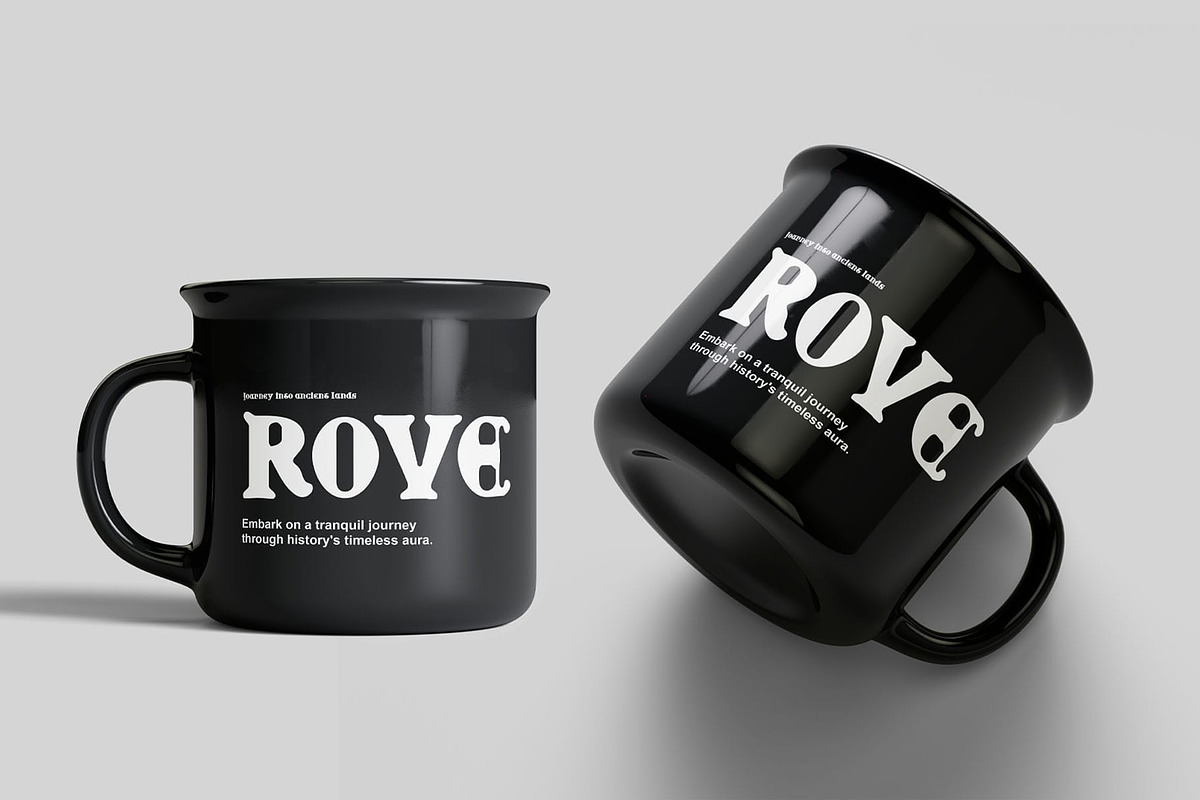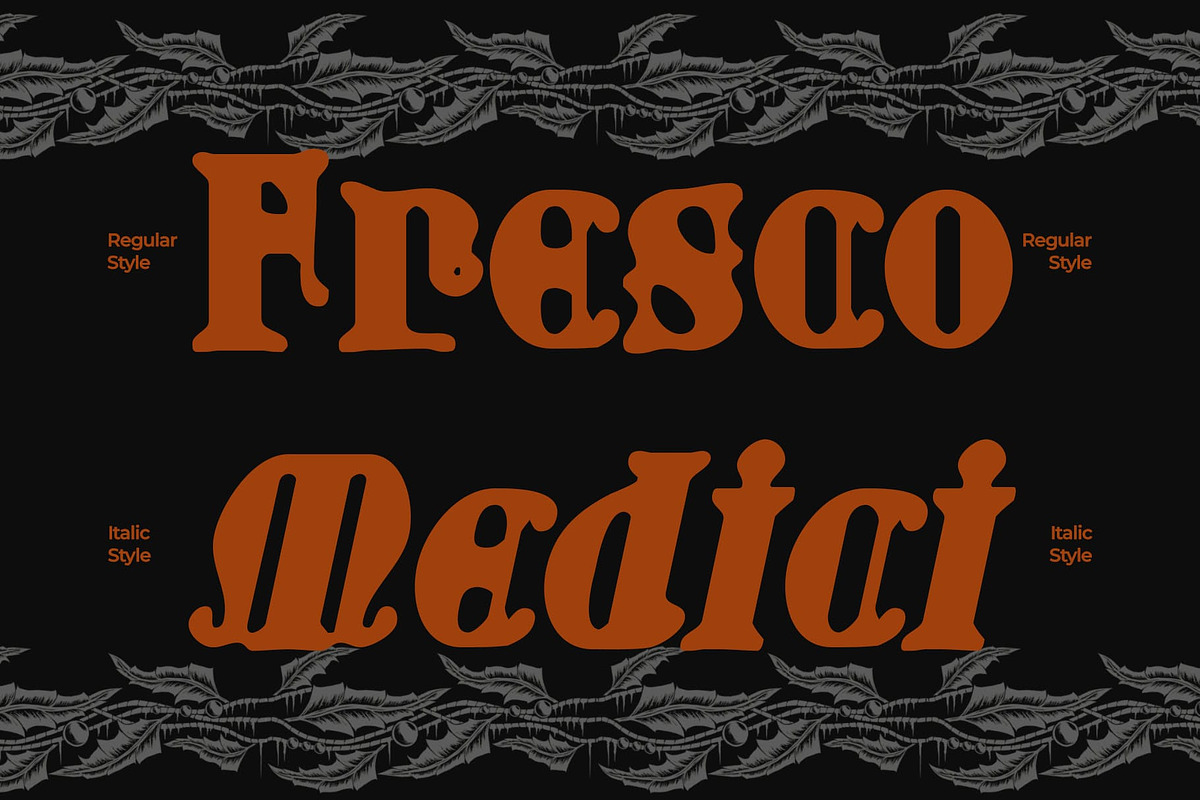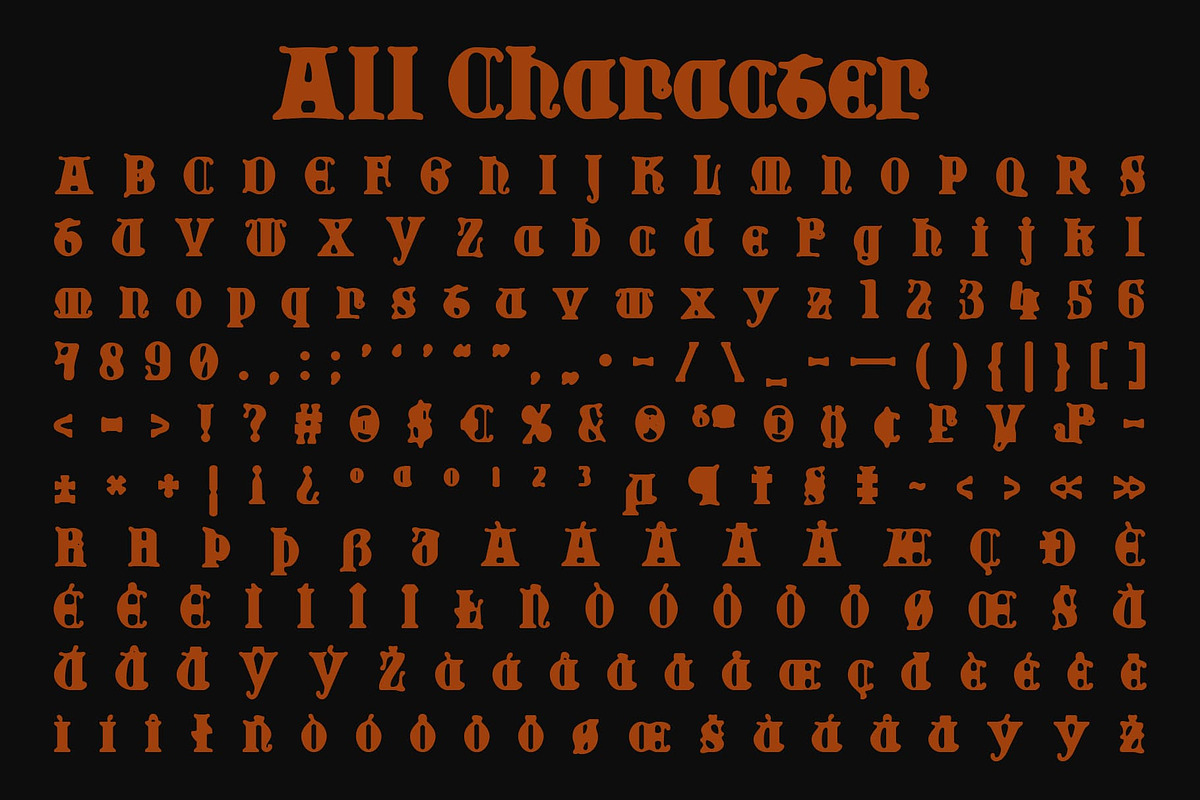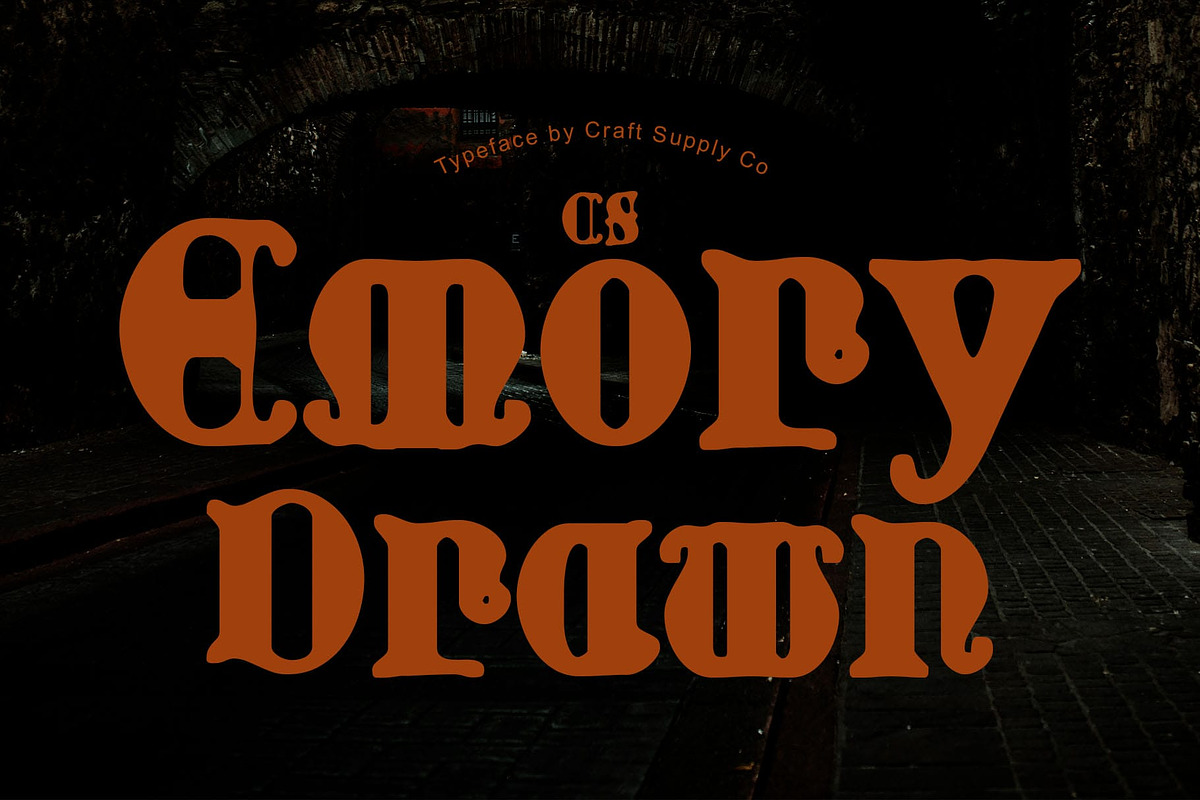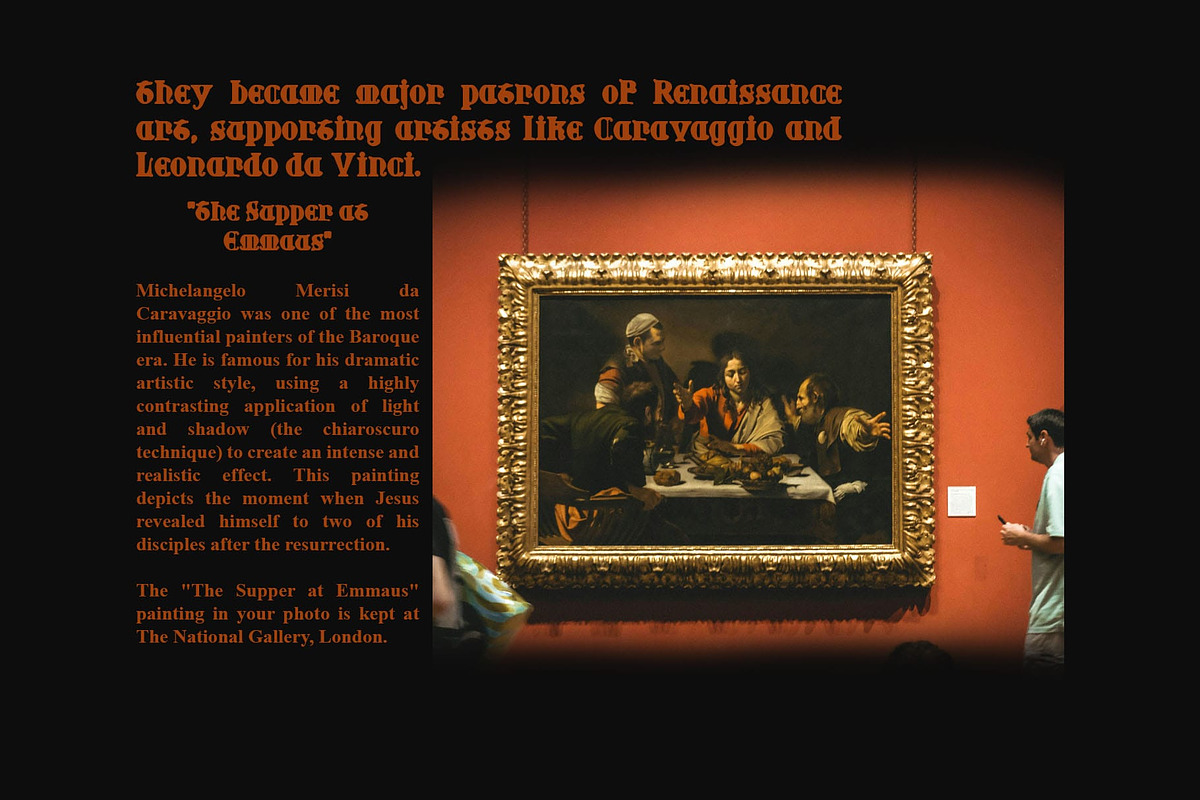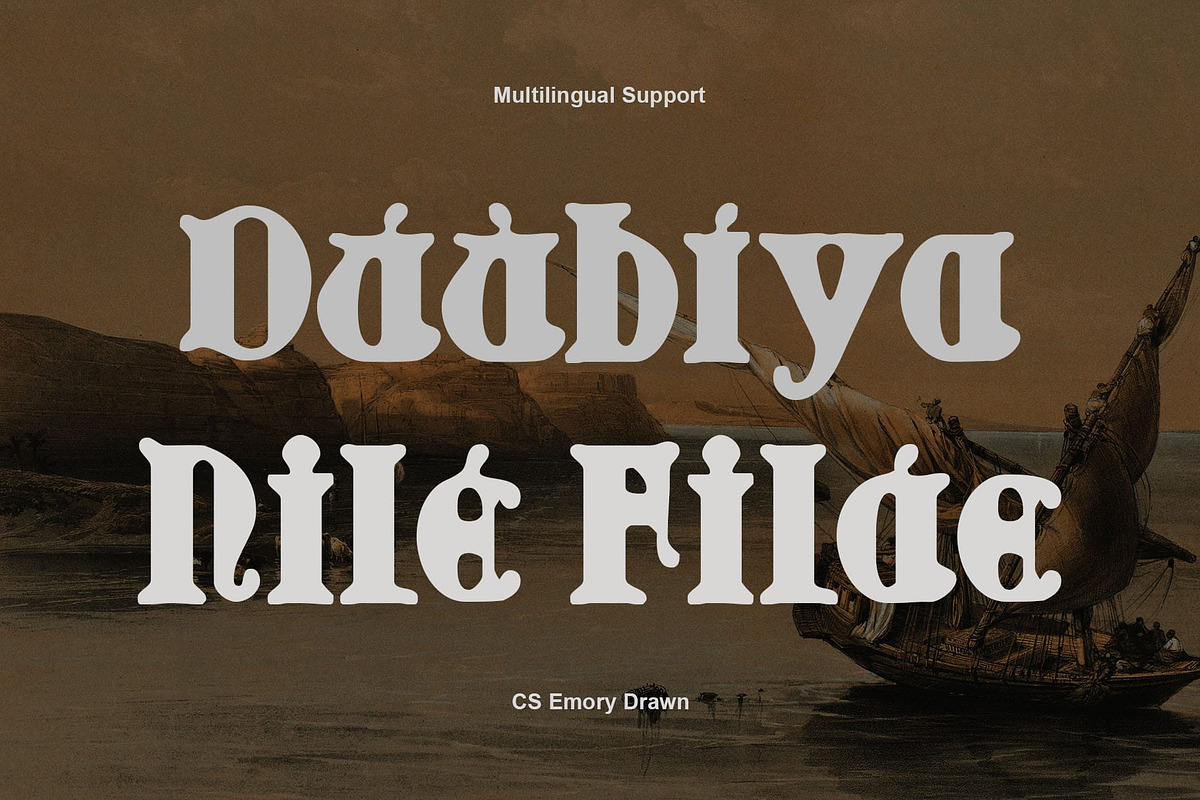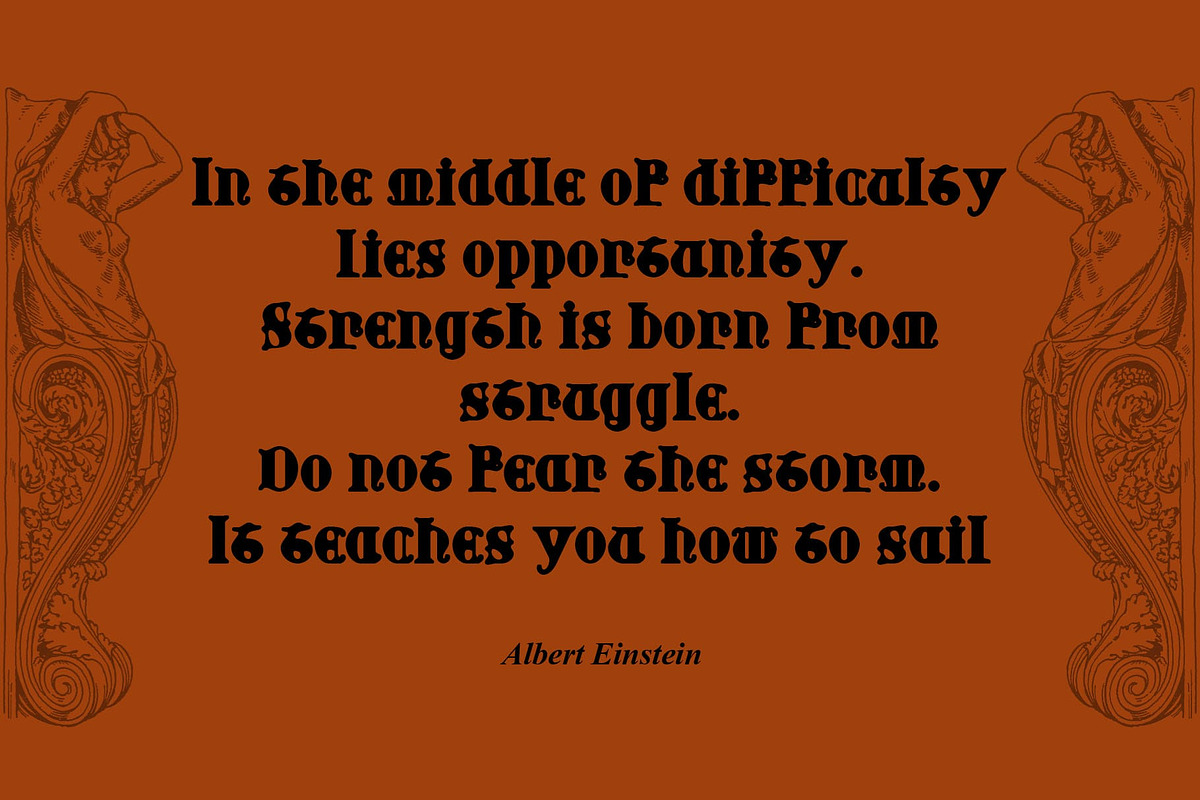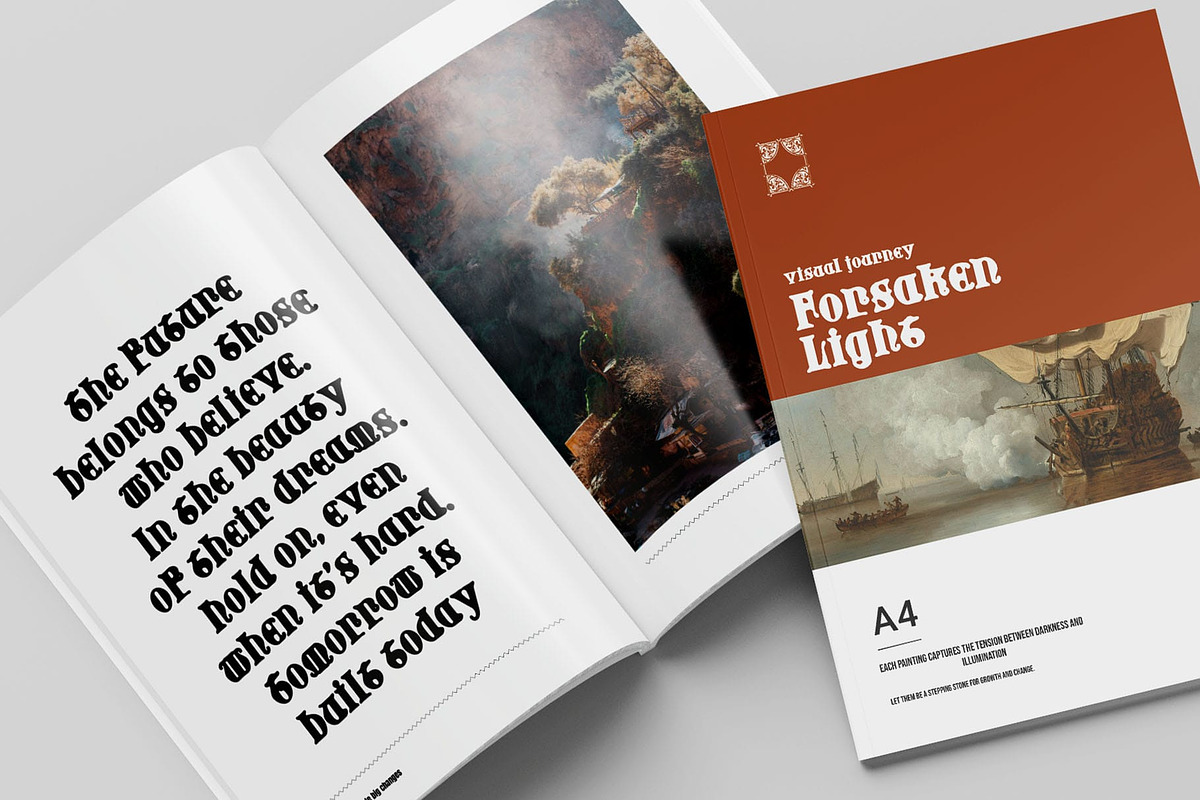
CS Emory Drawn
CS Emory Drawn – Gothic Hand-Drawn Font : Historical Display Font with Textured Character
Gothic Style with a Drawn Touch CS Emory Drawn is a Gothic-inspired font that carries a distinctive hand-drawn style. Each letter is crafted with historic influence, creating a textured and authentic feel that resembles the character of old stamps and manuscripts.
Unique and Historical Feel With its strong Gothic roots, CS Emory Drawn conveys a sense of tradition and heritage. The drawn texture enhances its individuality, making it perfect for projects that need to emphasize history, culture, or classic storytelling.
Perfect for Editorial and Print From book titles and newspapers to historical texts and editorials, CS Emory Drawn excels in printed media. Its textured strokes give a striking visual impression, allowing it to stand out while complementing traditional layouts.
Enhanced with Warm and Dark Colors This font’s depth is best highlighted with warm or dark color palettes, which emphasize the texture and Gothic essence of its design. Whether used in posters, heritage branding, or cultural projects, CS Emory Drawn delivers a bold and evocative aesthetic.